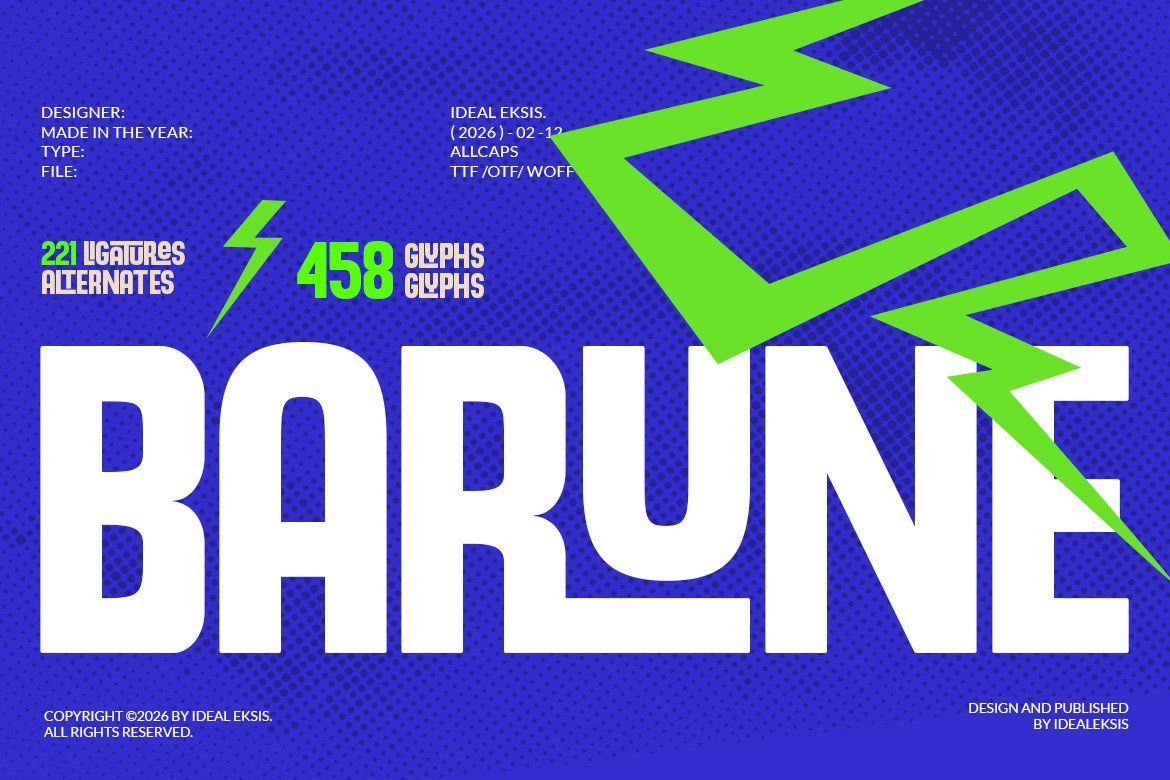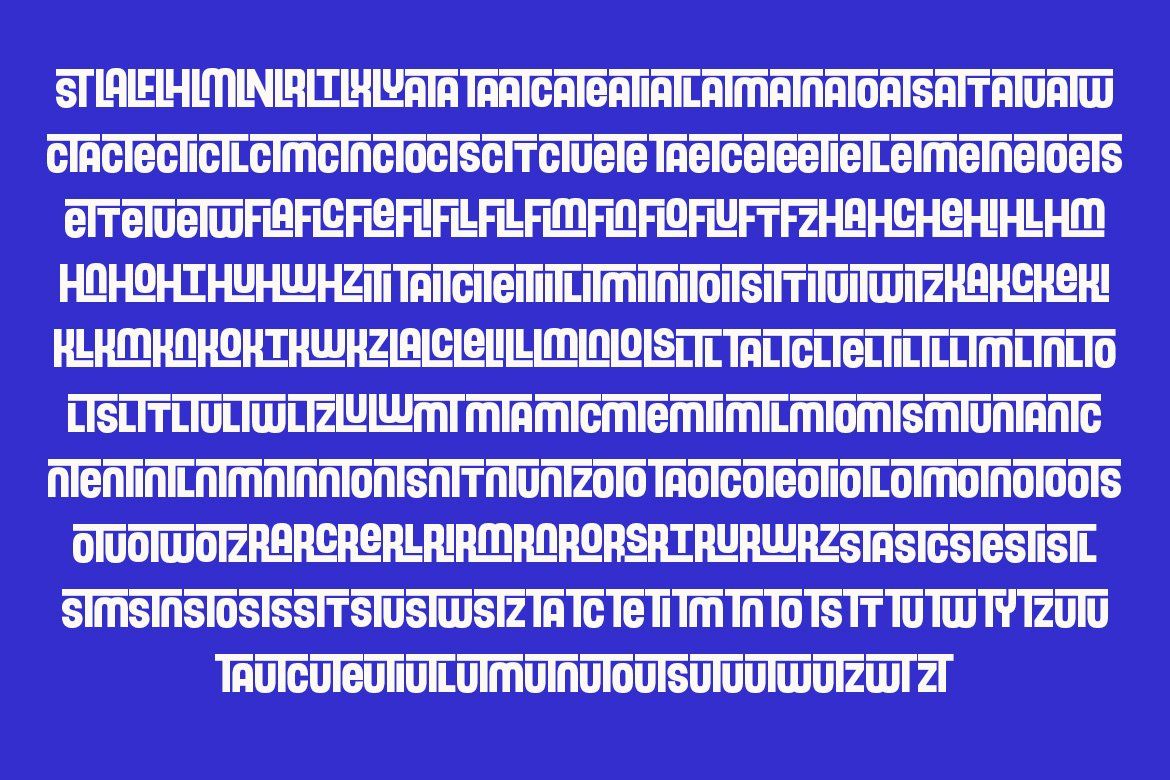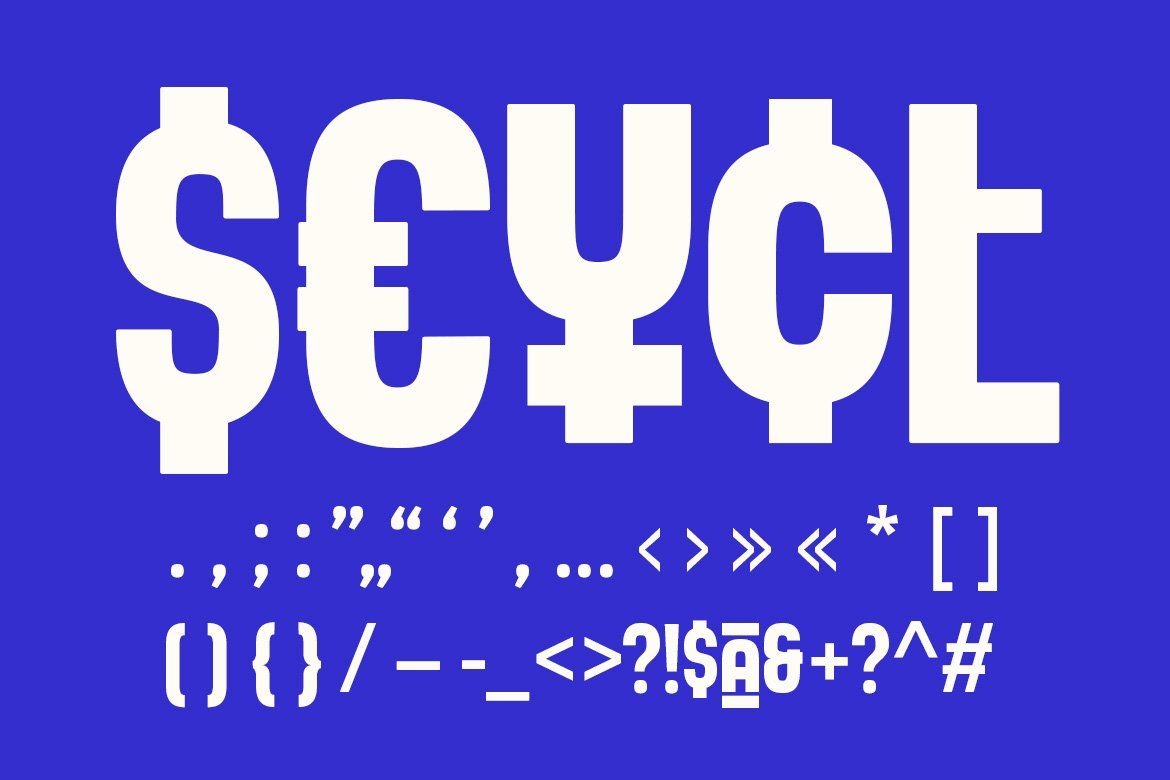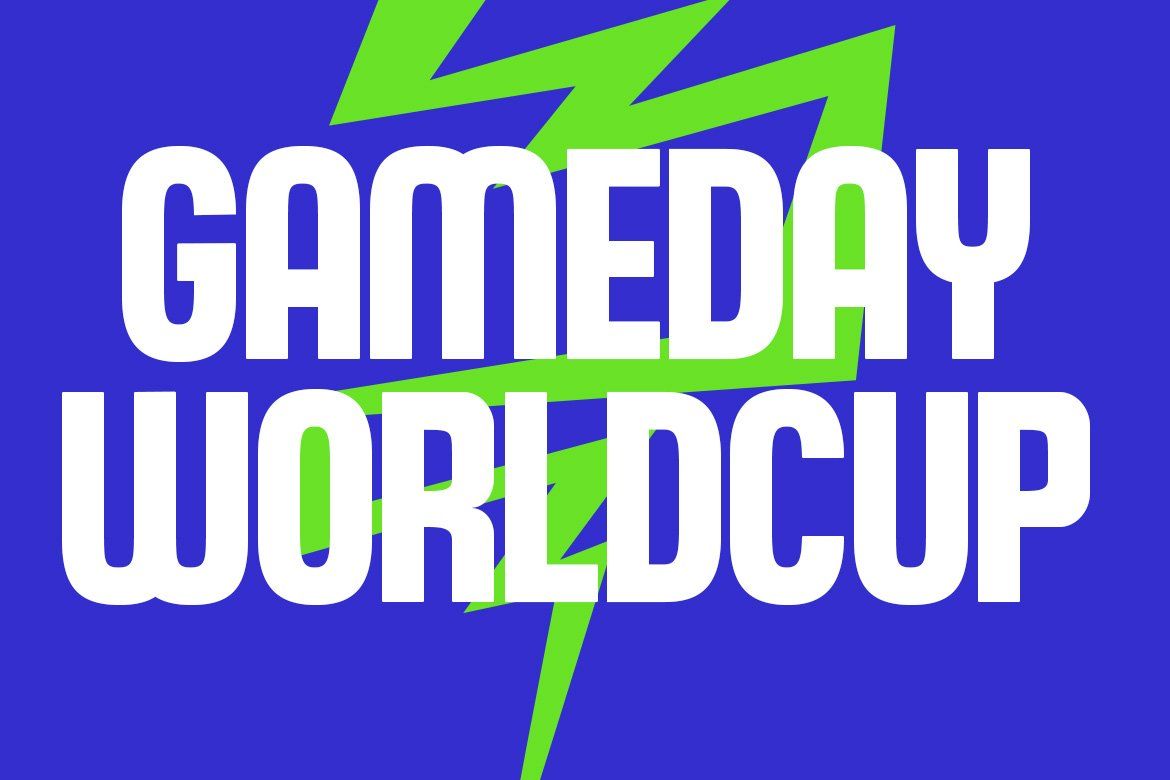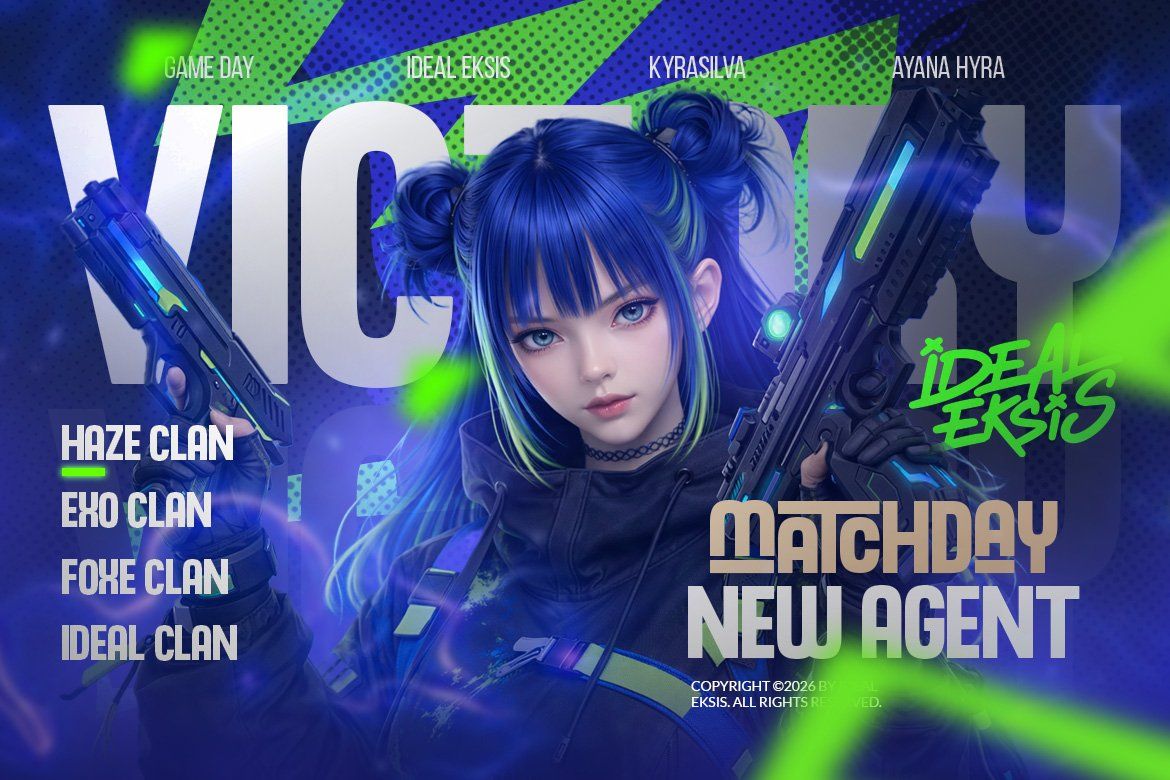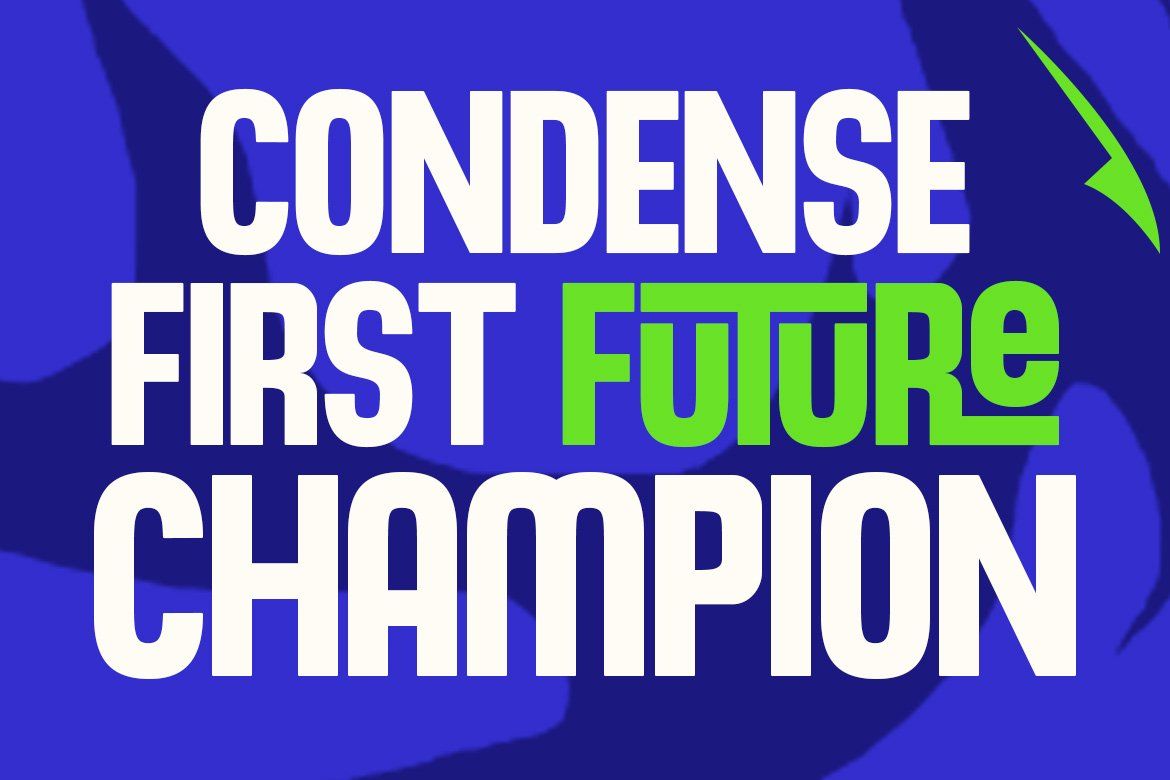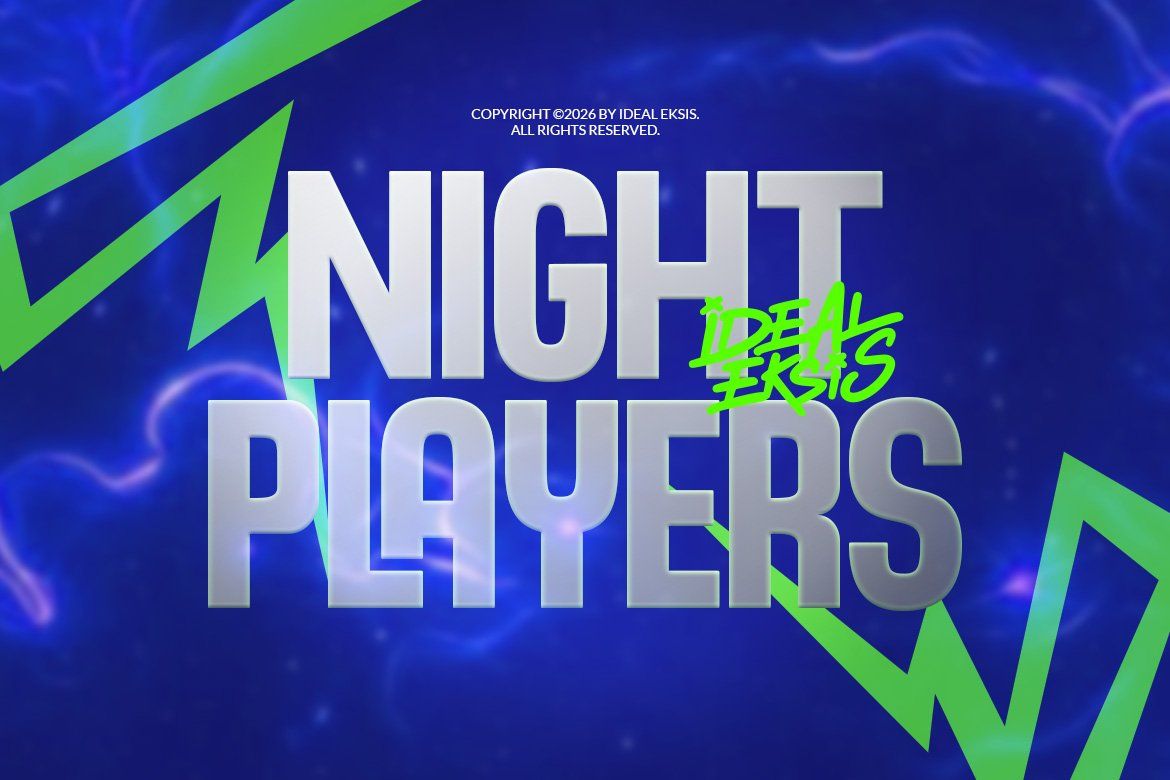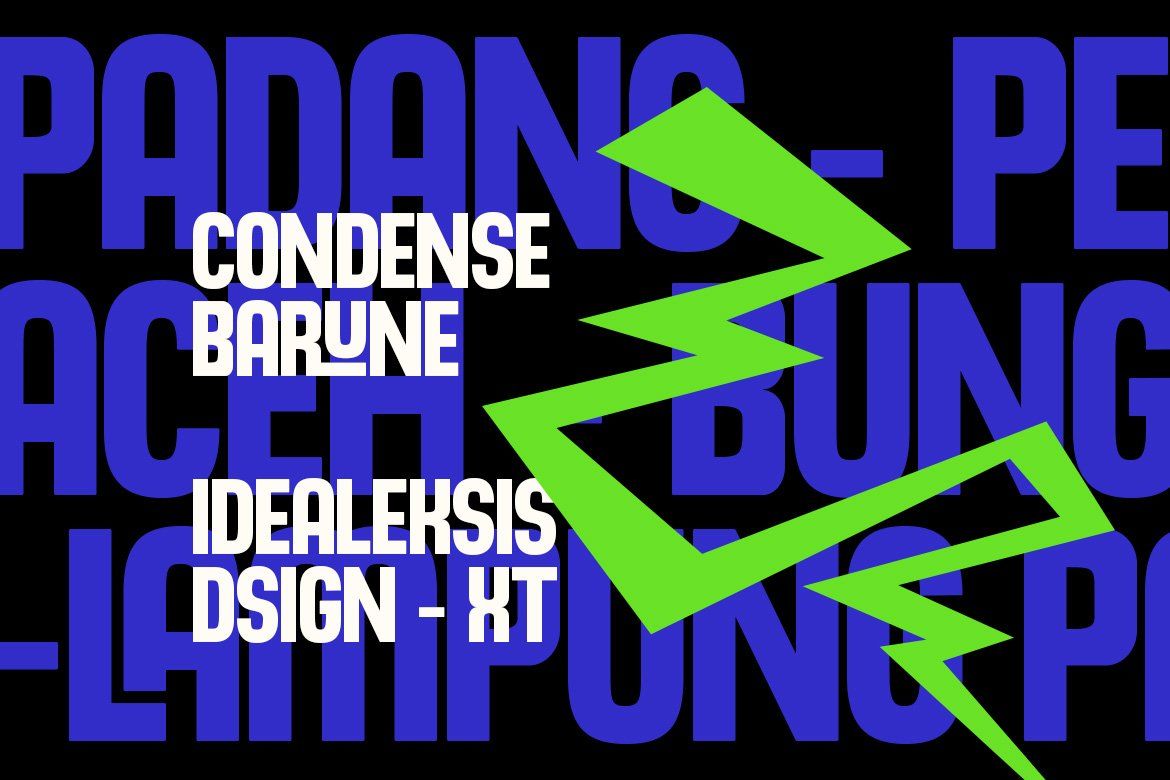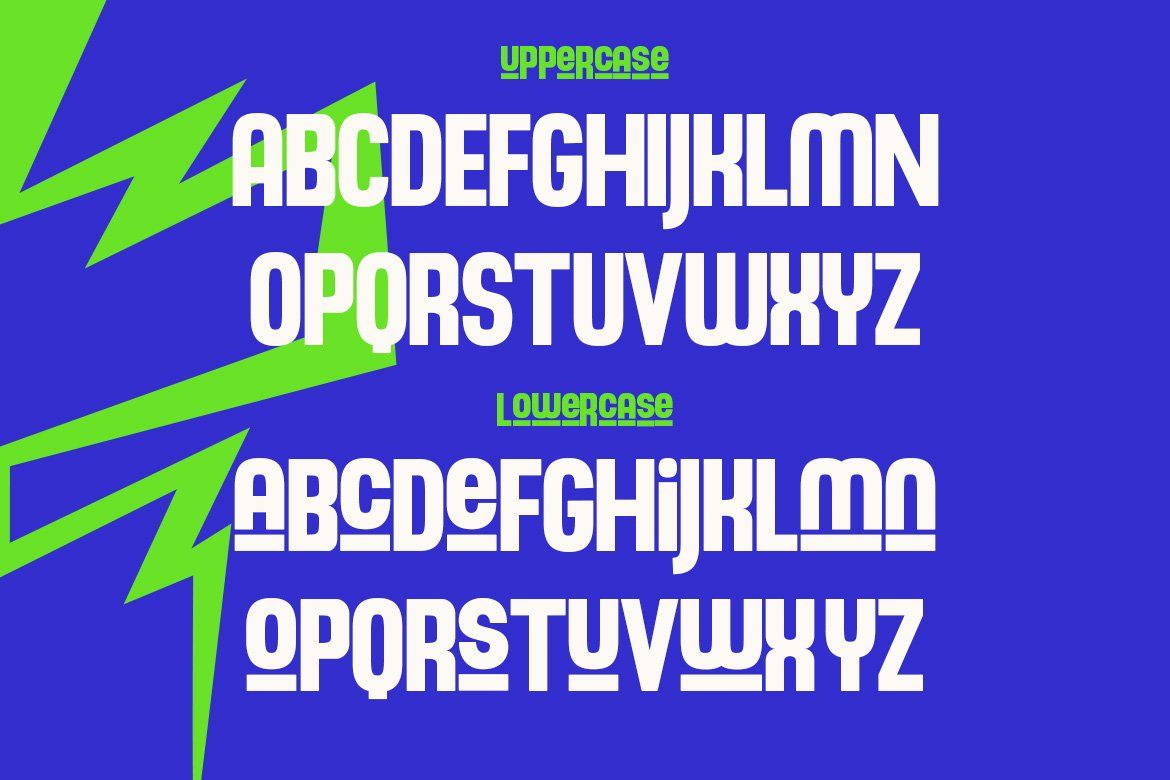
Barune is a heavy, ultra-bold display typeface characterized by its massive weight and tight letter spacing.
Feature :
• Uppercase (All Caps)
• Alternate
• Ligatures
• Numerals
• Punctuation
PERFECT FOR
• Motorsport visuals
• esport logos
• speed-themed headlines
• product branding
• social media graphics
• Esport Tournament
• Food flyer
• Sport Flyer Design